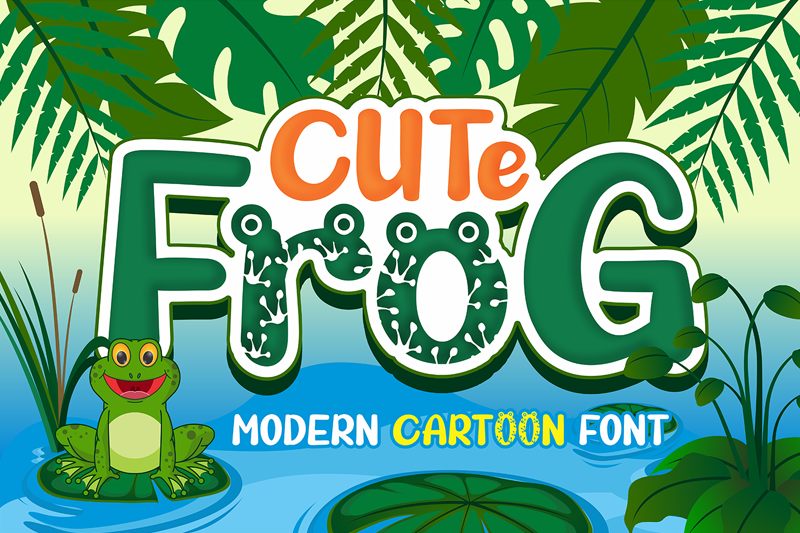
Cute Frog is a product font that has a frog character in it and has a modern style suitable for making logos, templet designs, screen printing clothes, banners and so on related to children. Cute Frog also provides alternative letters and numbers as well as several other bonus vectors. Download the full characters/Commercial Use from here: https://fontbundles.net/afredo-fk/517165-cute-frog/rel=3hRiEu Any question, drop me email to afredo.fk@gmail.com Thank You, Afredo.fk |